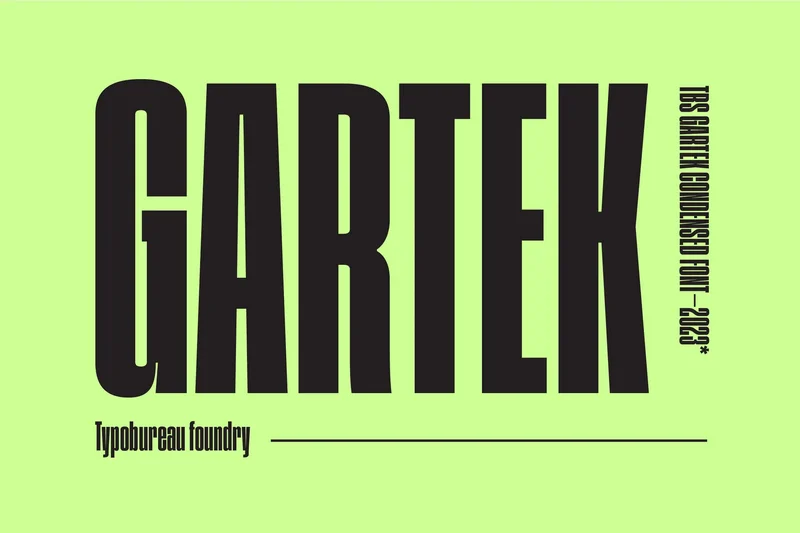
Gartek Condensed
GARTEK CONDENSED is a latin based condensed type of font that has a different characters from the previous TBS GARTEK HEAVY font, TBS GARTEK CONDENSED has a strong yet sharp looks character, with a post modernism and semi 90’s nostalgic, supported by more than 60± accent languages ranging from West, South East, Central Europe and a bit of Vietnamese. TBS GARTEK CONDENSED is able to complete your current needs who are designing something great. the single DemiBold weight is stunning in Magazine, Posters, Social Media Content, headlines. let’s get your project elevate works with TBS GARTEK CONDENSED.